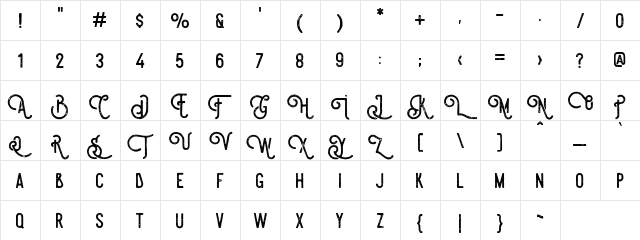
Steelworks Vintage Demo Steelworks Vintage Demo
Design Context for Steelworks Vintage Demo Typeface
Steelworks Vintage Demo has the warm character of retro typography — evoking diners, record sleeves, and the golden age of print advertising.
Ideal for diner signage, record shop branding, 70s/80s-themed projects, and heritage product labels.
Font Pairing: Combine Steelworks Vintage Demo with a simple slab or neutral sans — period-accurate companions reinforce the vintage feel without competing for attention.
Pro Tip: Lean into Steelworks Vintage Demo's period character by pairing it with aged paper textures, muted colour palettes, and vintage illustration styles.